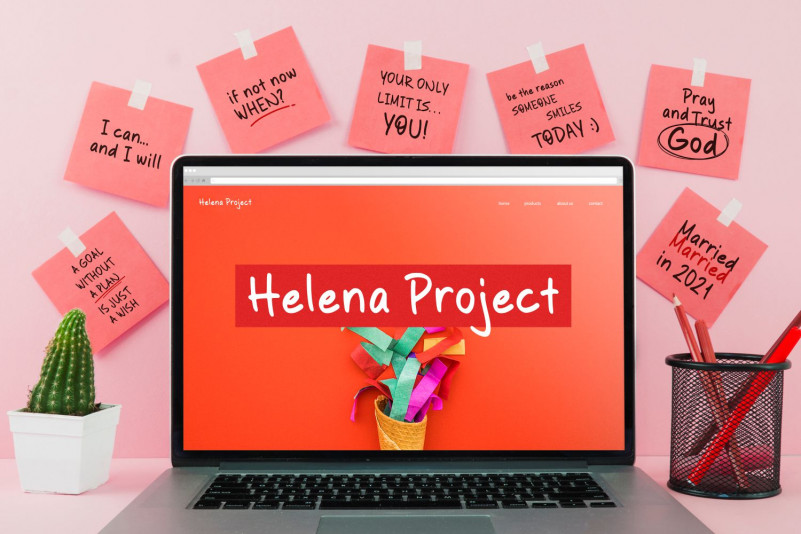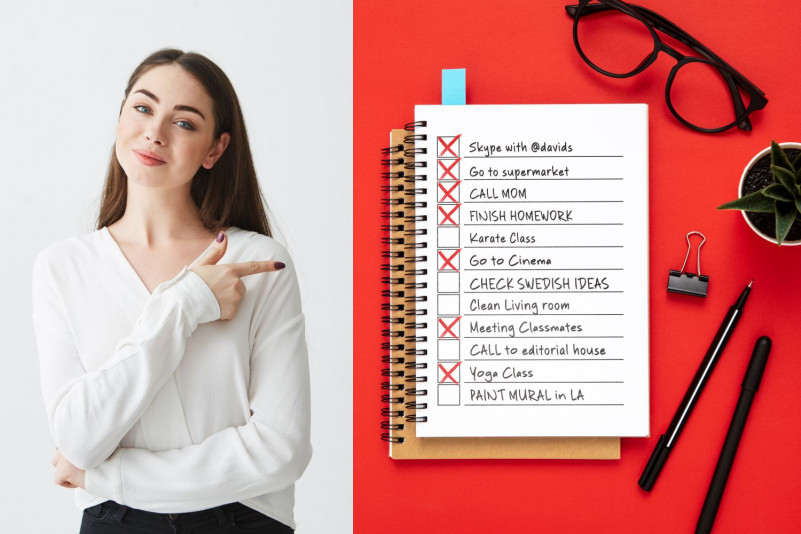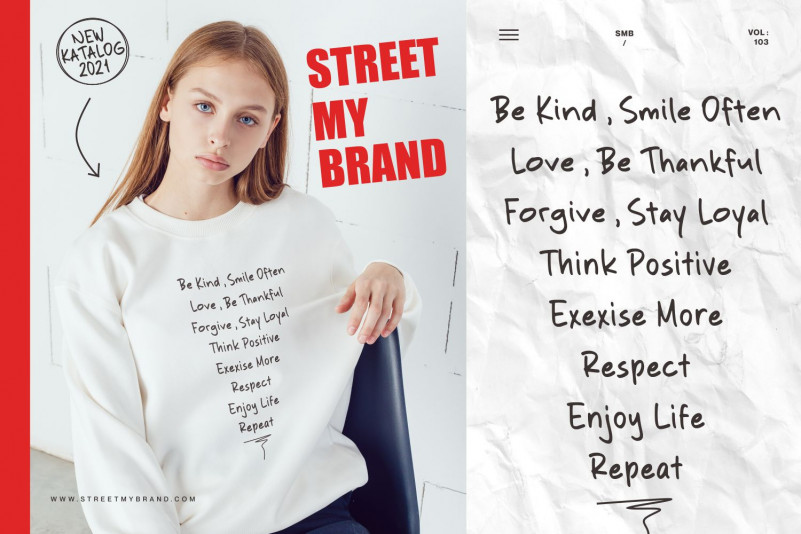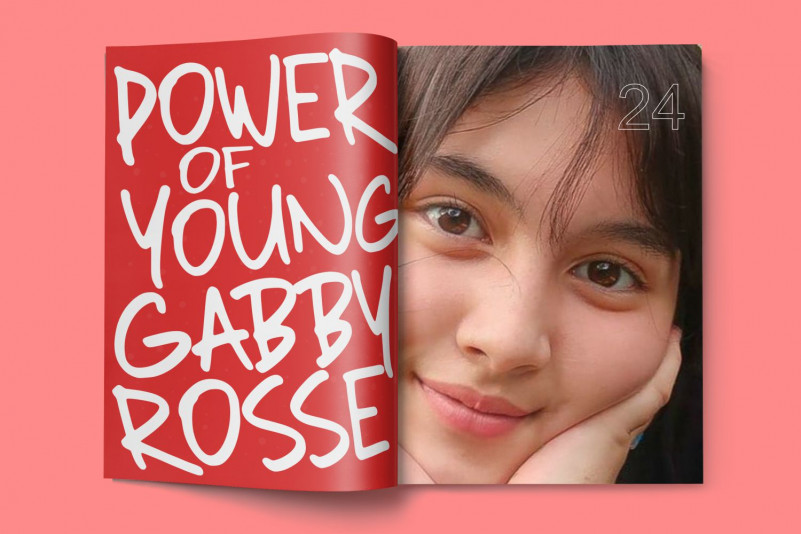
Grimnotes Display Font
This is a cute and colorful handwritten font. It embodies playfulness and authenticity and is the perfect choice for any children activity or school project.